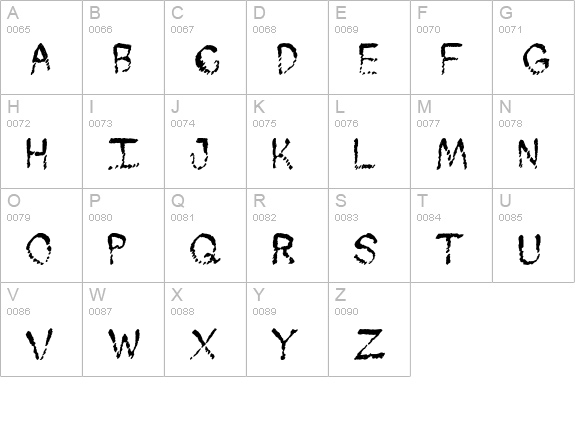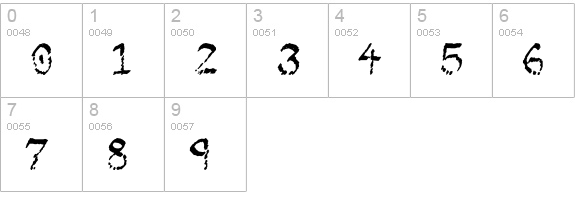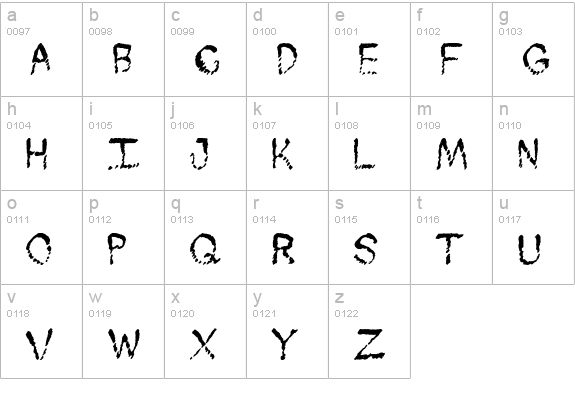
Skuntch Font is a unique and eye-catching typeface that is sure to make a bold statement. With its distinctive and modern design, this font is perfect for adding a touch of creativity to any project. The letters are elegantly crafted with a playful twist, combining sharp edges with smooth curves to create a visually striking effect. But what sets Skuntch Font apart from other fonts is that it is not only visually stunning, but also completely free. Yes, you read that right - this font is freely available to download at FontsMarket.com. Whether you're a professional designer, a student working on a school project, or just someone looking to add a little flair to your personal documents, Skuntch Font is accessible to all. Imagine the possibilities with this versatile font. From logos and branding to posters and invitations, Skuntch Font can be used in a variety of creative ways. Its bold and attention-grabbing nature will ensure that your message stands out from the crowd. With Skuntch Font, you can unleash your creativity without any limitations. Experiment with different sizes, colors, and styles to create a truly unique and impactful design. The font's legibility remains intact even when used in smaller sizes, making it suitable for both digital and print applications. So, why settle for ordinary when you can have extraordinary? Download Skuntch Font for free at FontsMarket.com and let your imagination run wild. Enhance your designs, captivate your audience, and make a lasting impression with this stunning and freely available typeface.